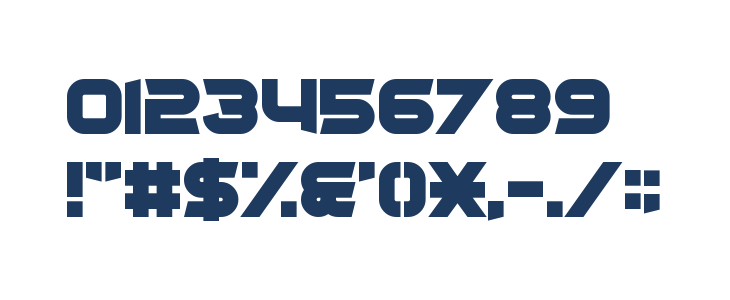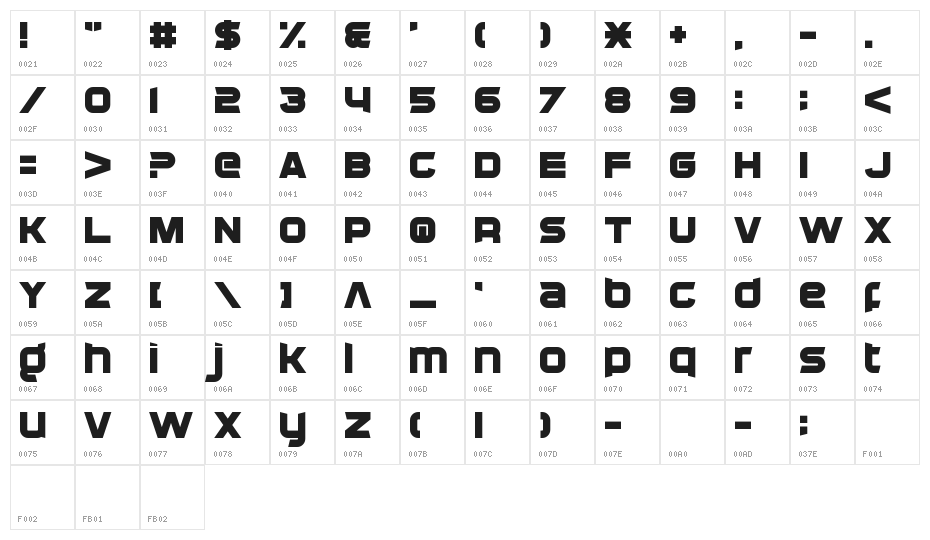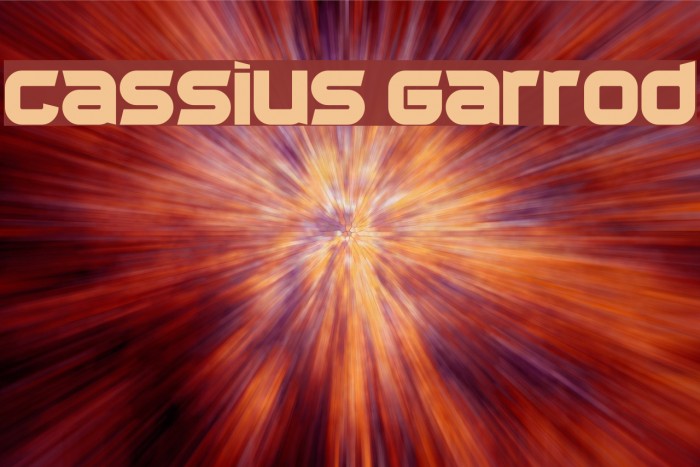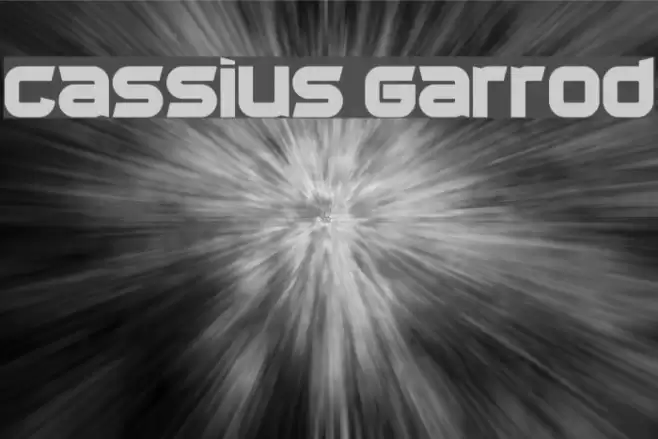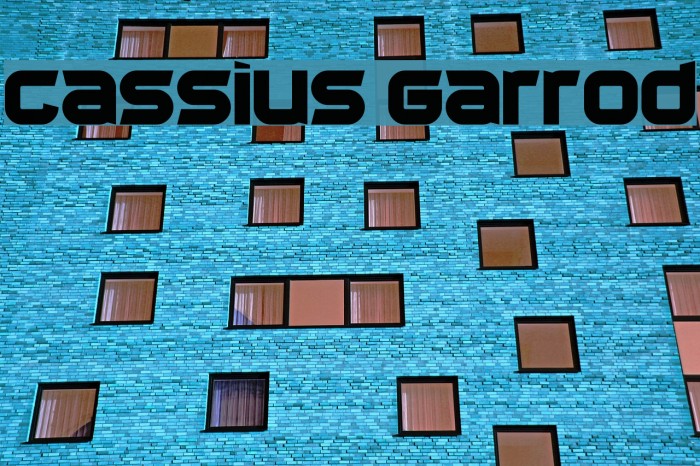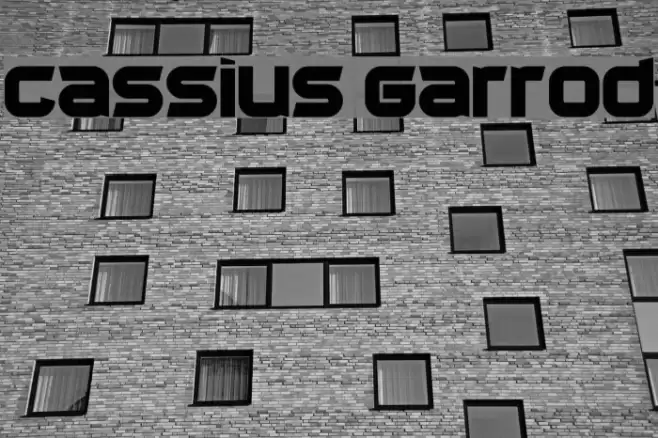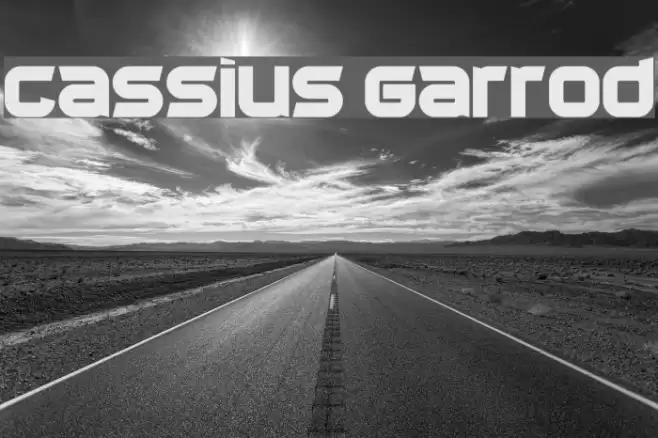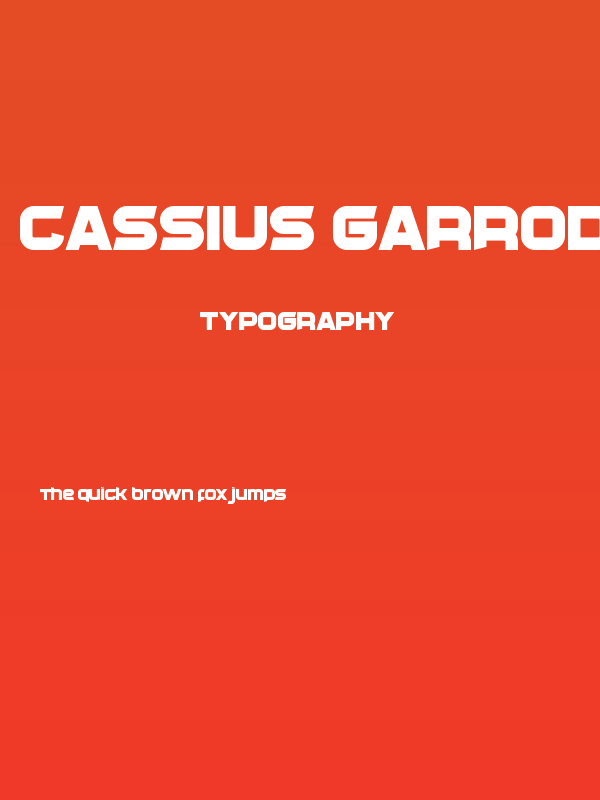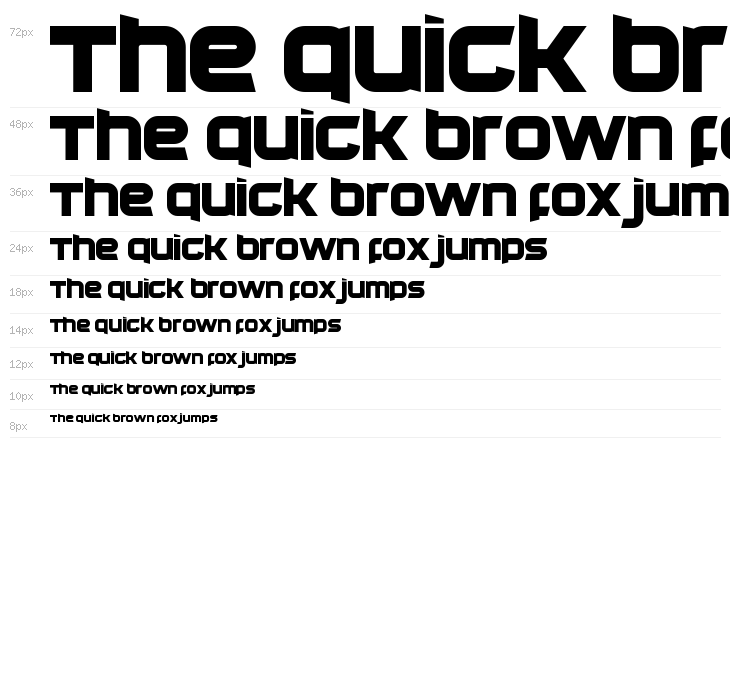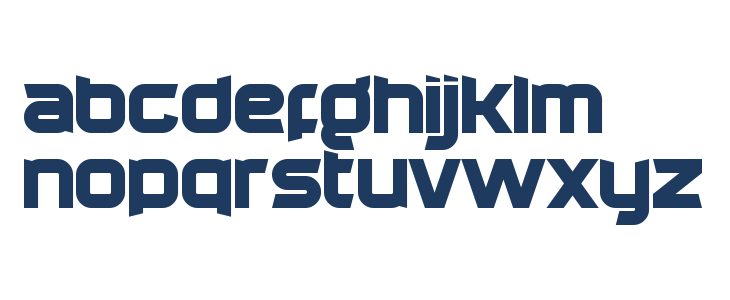
Cassius Garrod Font
Cassius Garrod Description
This font features a bold and striking design with a modern, geometric aesthetic. The characters are constructed with sharp angles and clean lines, giving it a futuristic and edgy appearance. The uppercase letters are particularly prominent, with a strong presence that commands attention. The lowercase letters maintain the same angular style, ensuring consistency throughout the typeface. The numerals are equally bold, making them stand out in any design. Special characters are included, each crafted with the same attention to detail and style. This font is ideal for projects that require a strong visual impact and a contemporary feel.